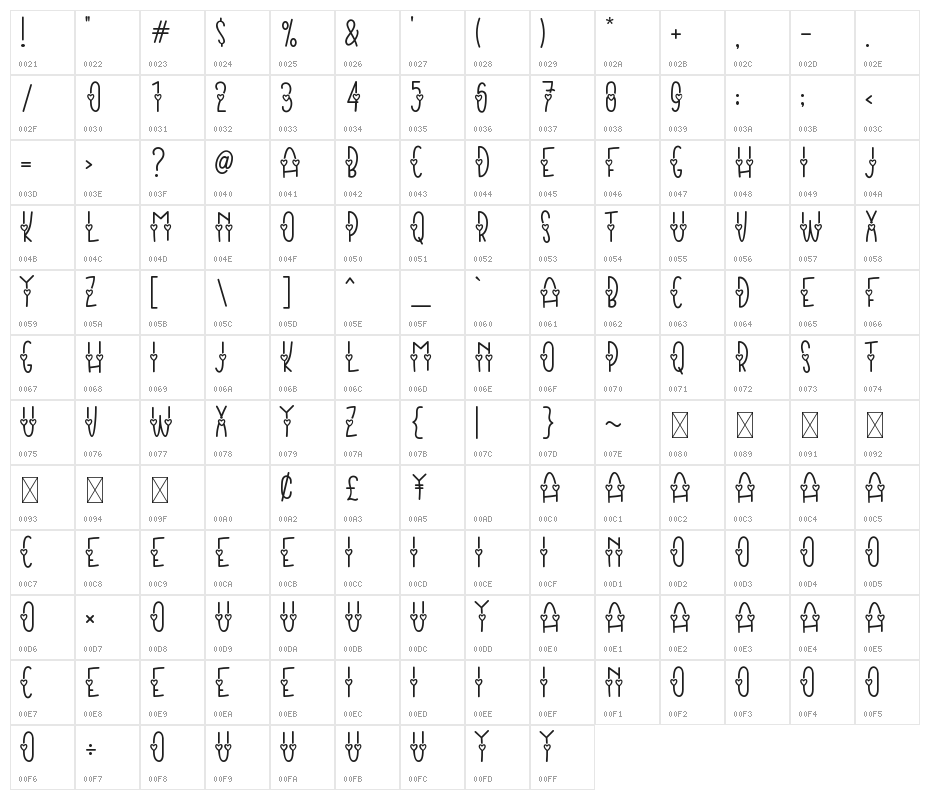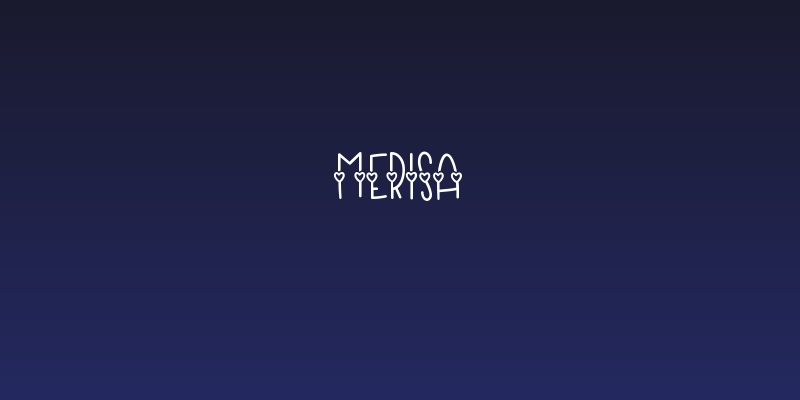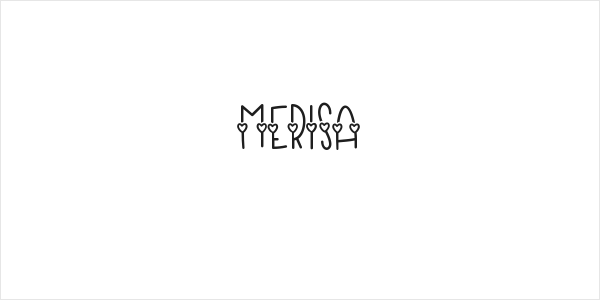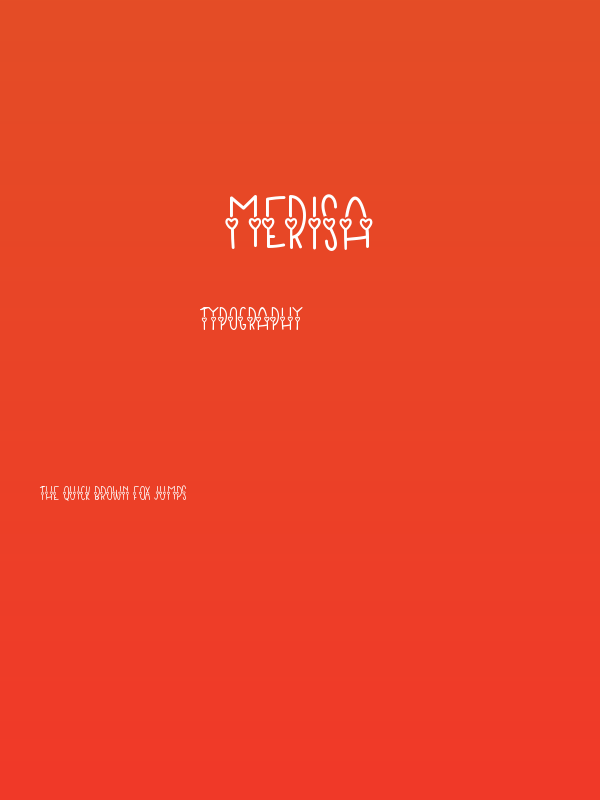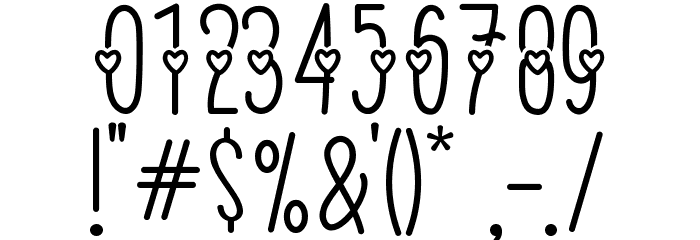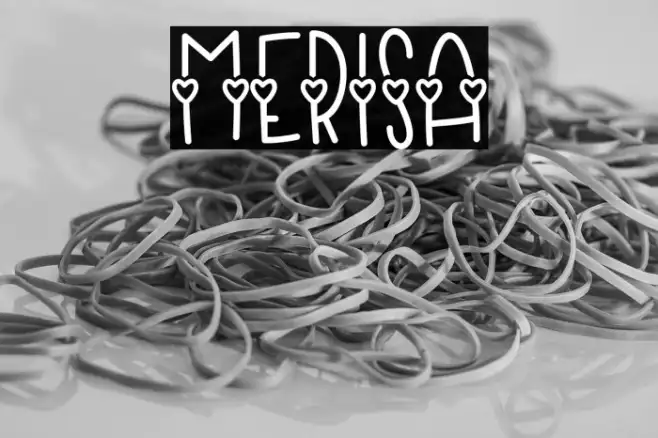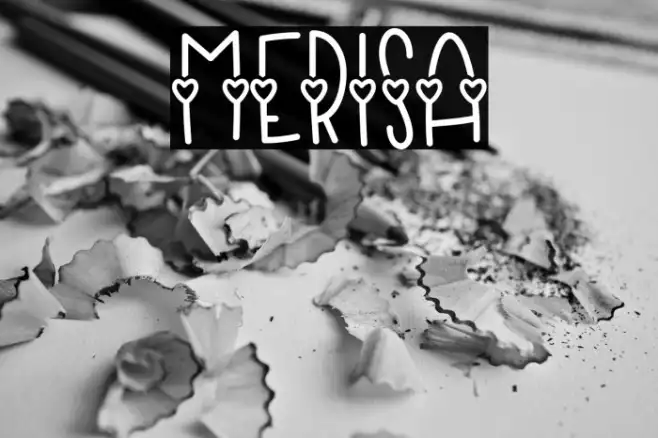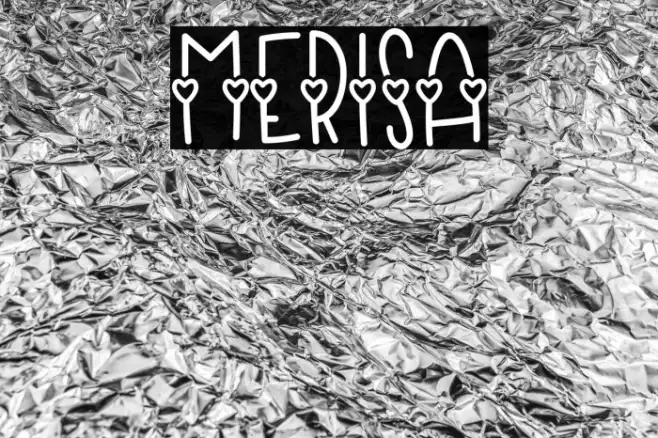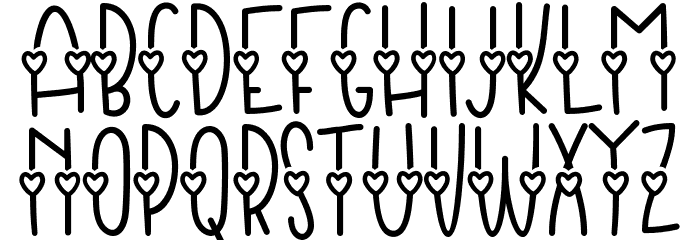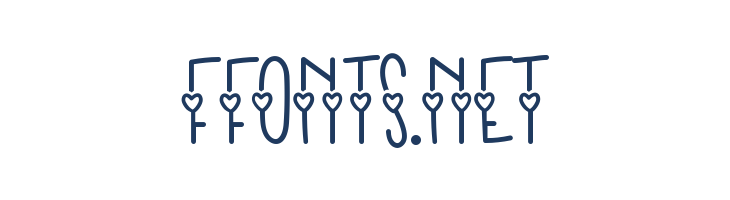
Merisa Font
Merisa Description
This playful and decorative font features heart shapes integrated into each character, giving it a whimsical and romantic feel. The letters are tall and narrow, with a consistent stroke width that maintains a clean and legible appearance. The heart motifs replace traditional serifs, adding a unique and charming touch to the overall design. This font is perfect for projects that require a fun and loving aesthetic, such as greeting cards, wedding invitations, or children's book covers. Its distinct style makes it stand out, while still being easy to read.
| Proposed Projects | Ideal for greeting cards, wedding invitations, children's books, and playful branding. |